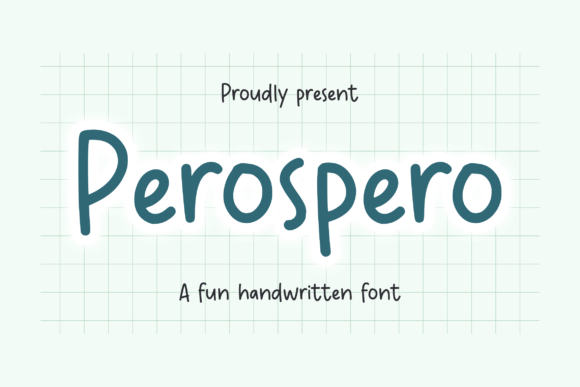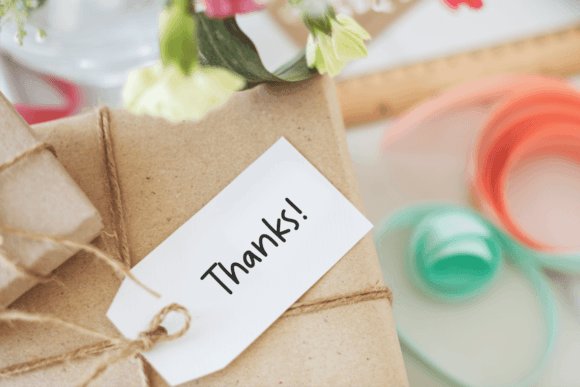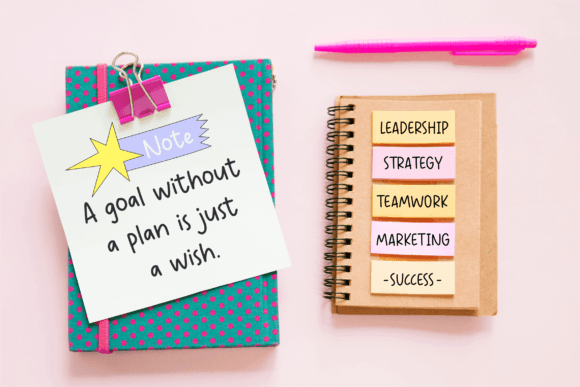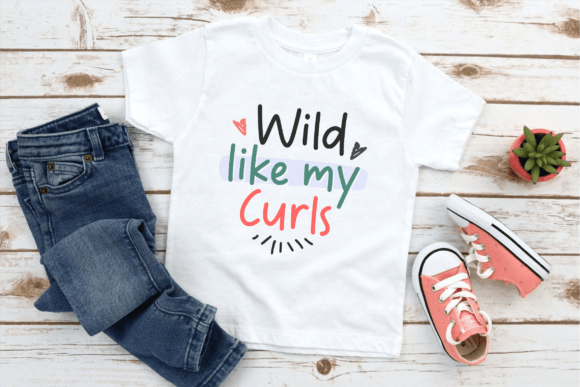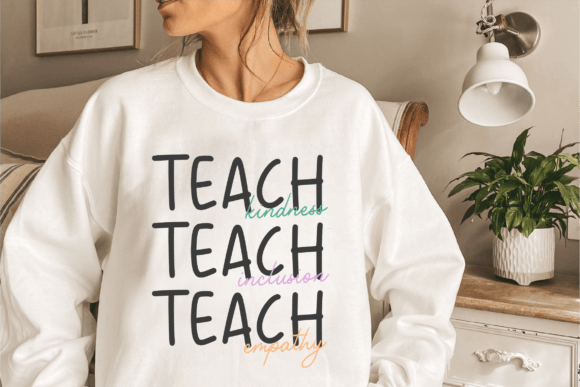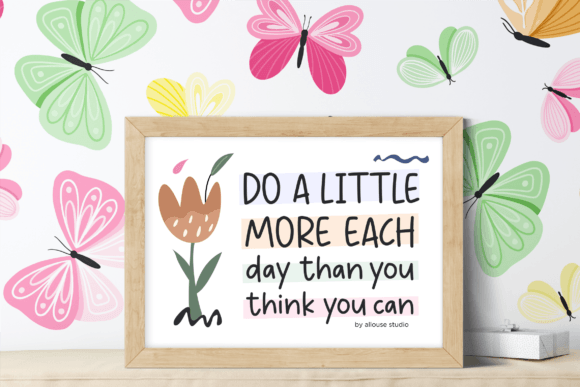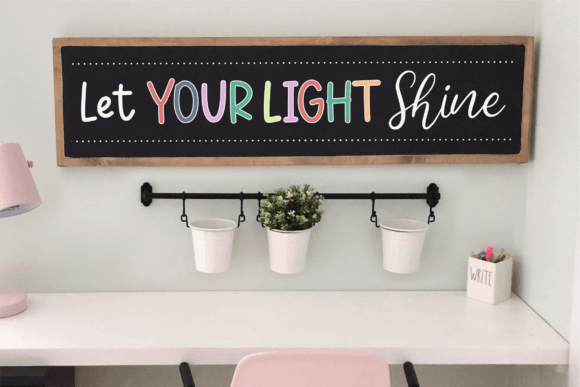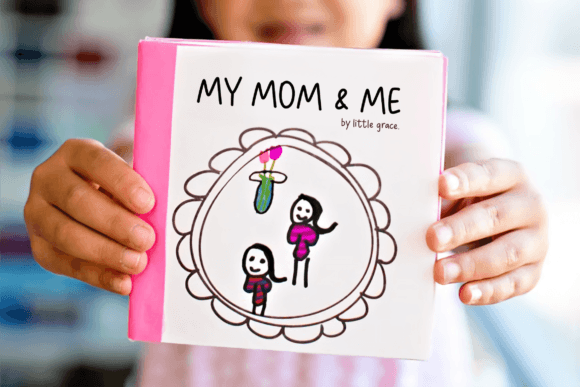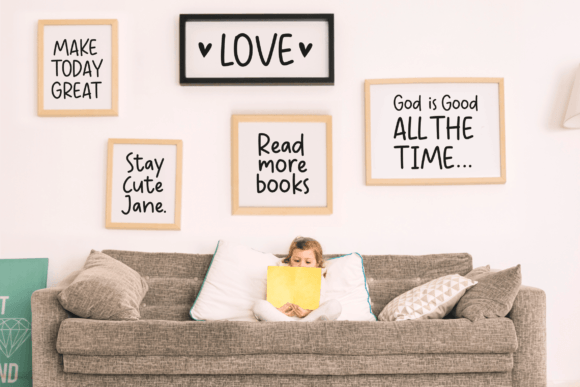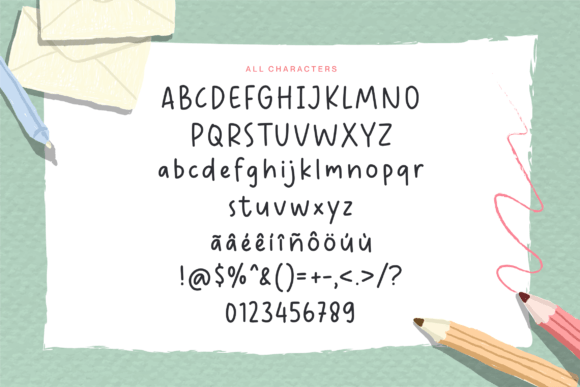
Perospero Font
“Perospero” is a fun and friendly handwritten font that adds a playful touch to a variety of design projects. With its natural and unique style, this font is incredibly fitting for a wide range of creative applications. The versatility of “Perospero” means that the only limit to its use is your imagination.
The fun and friendly qualities of “Perospero” make it suitable for projects that require a lighthearted and approachable vibe. Imagine using this font for a whimsical poster, where its playful script adds a sense of joy and creativity. Picture it on a greeting card, adding a friendly touch to your heartfelt messages.
One of the strengths of “Perospero” is its ability to adapt to different design contexts, making it suitable for a large pool of creative projects. Its handwritten charm brings a sense of authenticity and uniqueness to your designs, making them visually appealing and engaging.
As you explore the creative possibilities with “Perospero,” let its fun and friendly handwritten style be the element that adds a touch of playfulness to your projects. Whether you’re working on posters, greeting cards, or any other design that calls for a friendly vibe, “Perospero” invites you to unleash your imagination and create designs that stand out with joy and creativity.